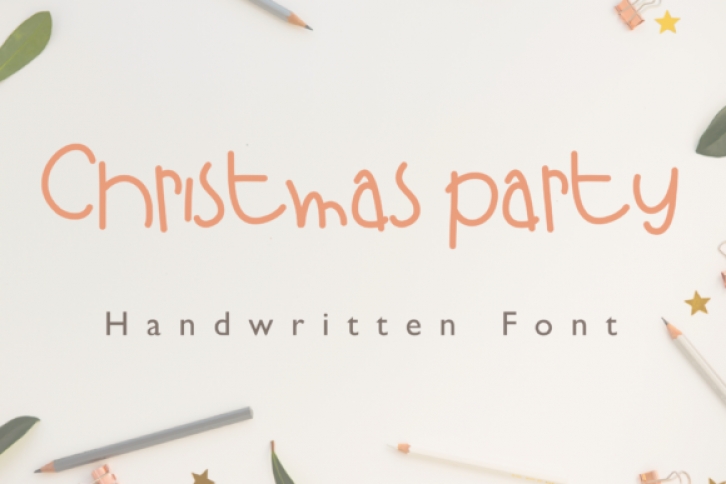
Christmas Party is a cute and dainty handwritten font. It is ideal for holiday-themed greeting cards and for any crafting project that requires a sweet touch.